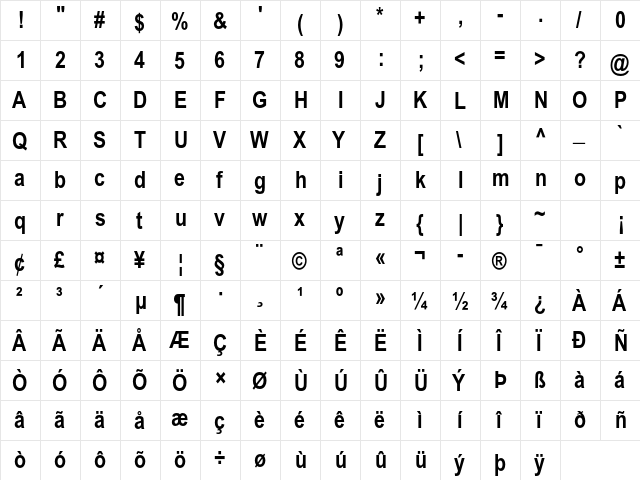
Arial Narrow MT Std Bold
Design Context for Arial Narrow MT Std Typeface
Arial Narrow MT Std takes a measured approach to typography — its balanced proportions and neutral character make it a reliable workhorse for both digital and print work. The heavy weight commands attention and anchors typographic hierarchies. Its narrow stance lets it pack a punch even in space-constrained designs.